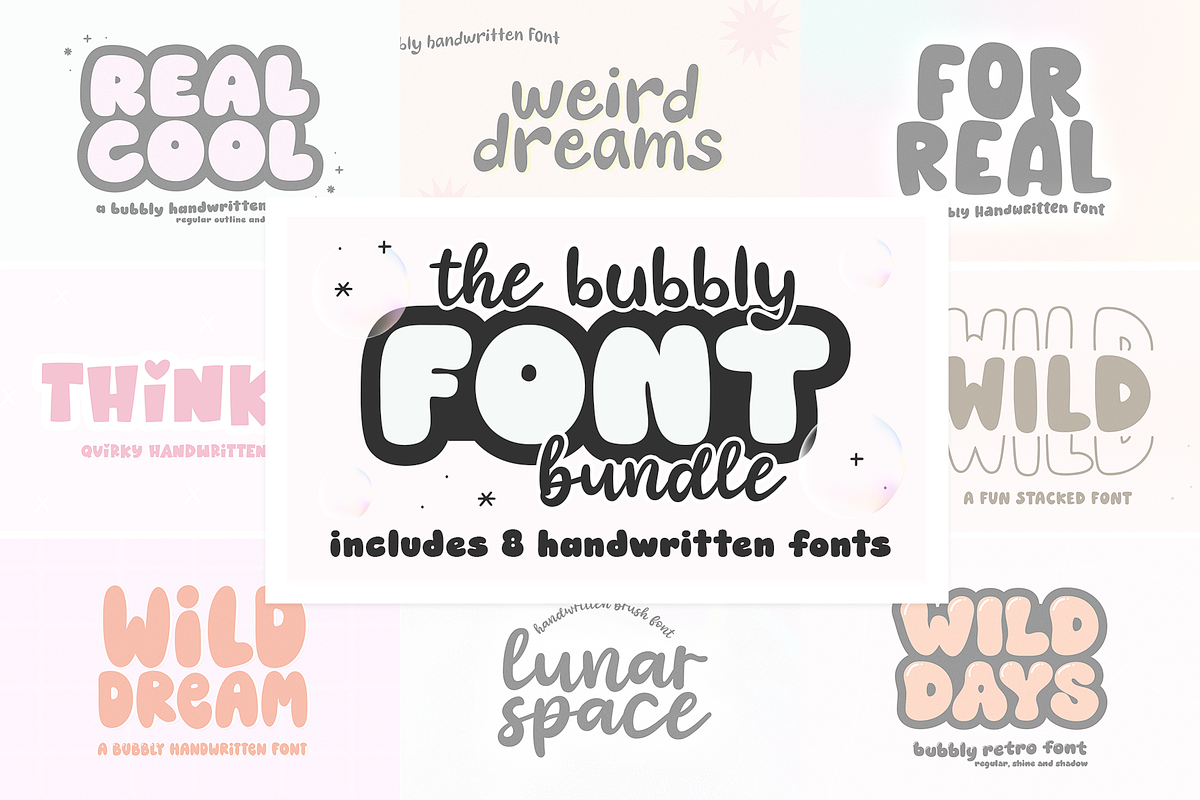
Bubbly Retro Font Bundle Free Download
Bubbly Retro Font Bundle Free Download is a fun and vibrant collection of retro-inspired fonts that bring a playful and nostalgic feel to your designs. Featuring bold, rounded letterforms and classic vintage style, this font bundle is perfect for creating eye-catching logos, posters, branding, packaging, and social media graphics with a cheerful, retro touch.
This versatile collection includes various weights and styles, offering a wide range of creative possibilities for your design projects. Whether you're working on a vintage brand identity, a 70s-inspired product label, or a funky event flyer, the Bubbly Retro Font Bundle adds a delightful, bold statement to your typography.